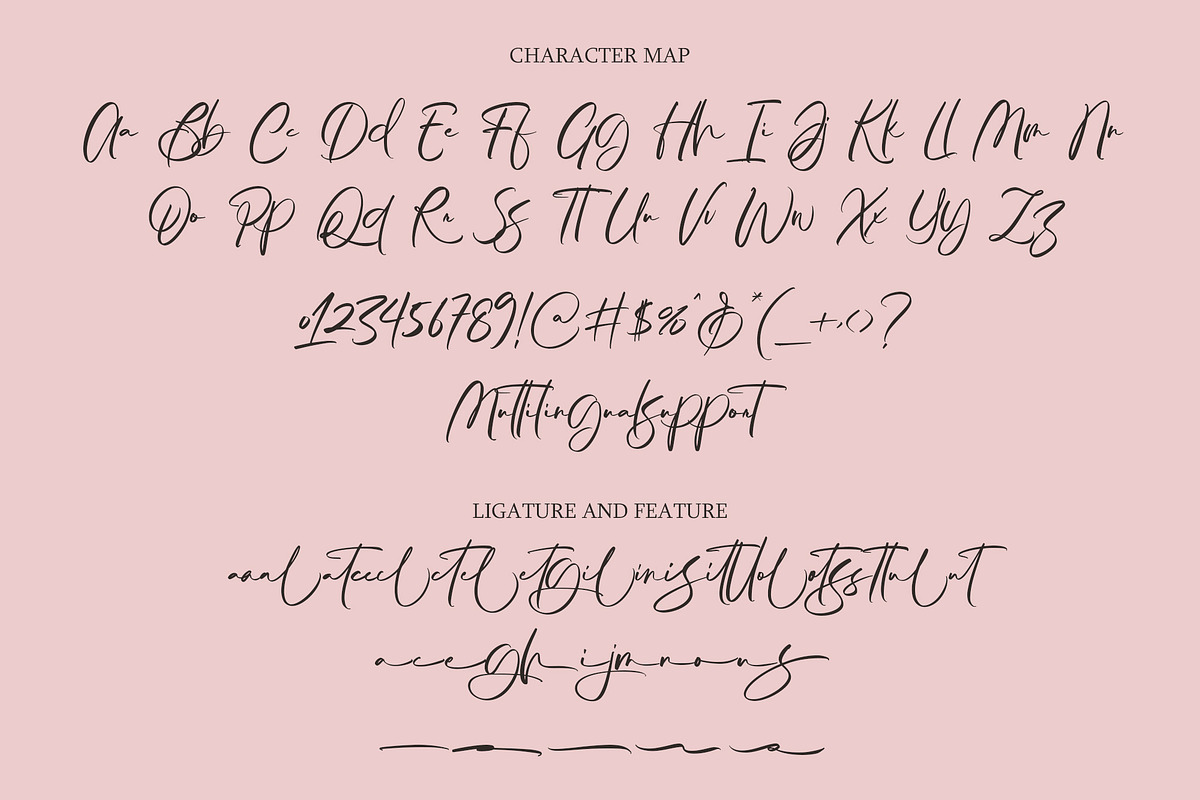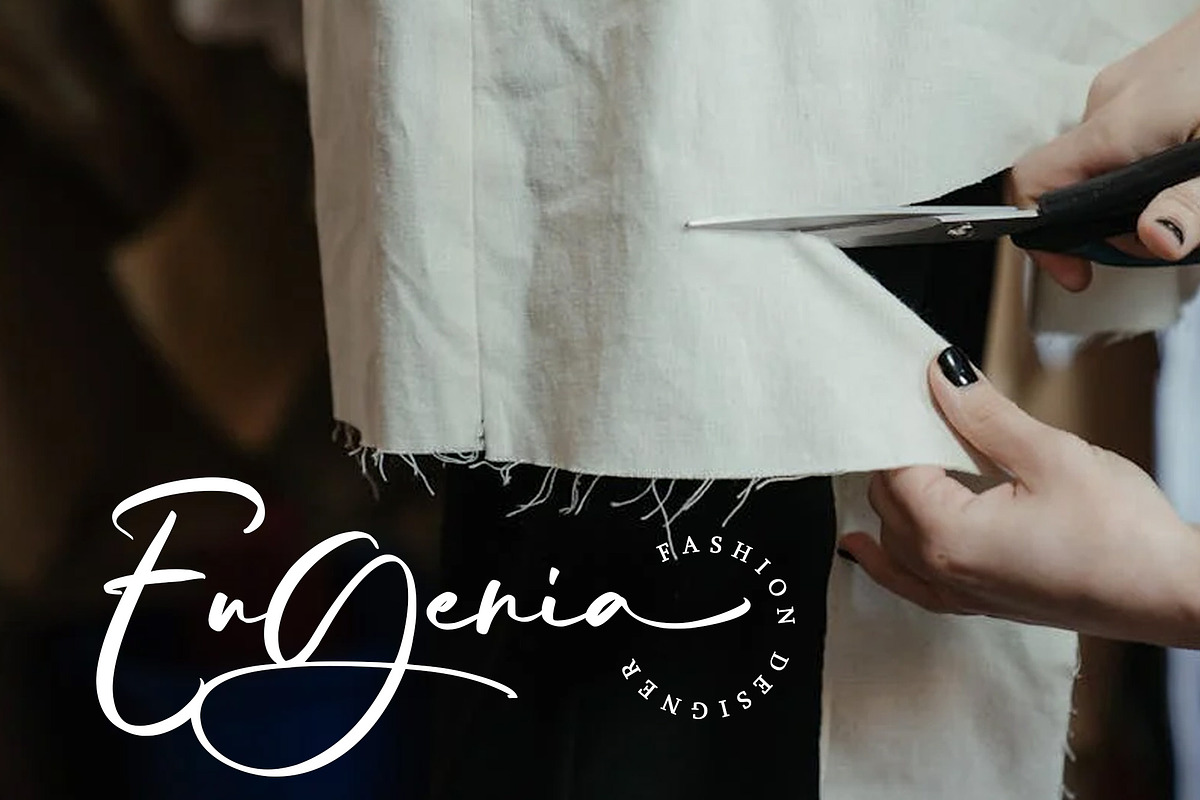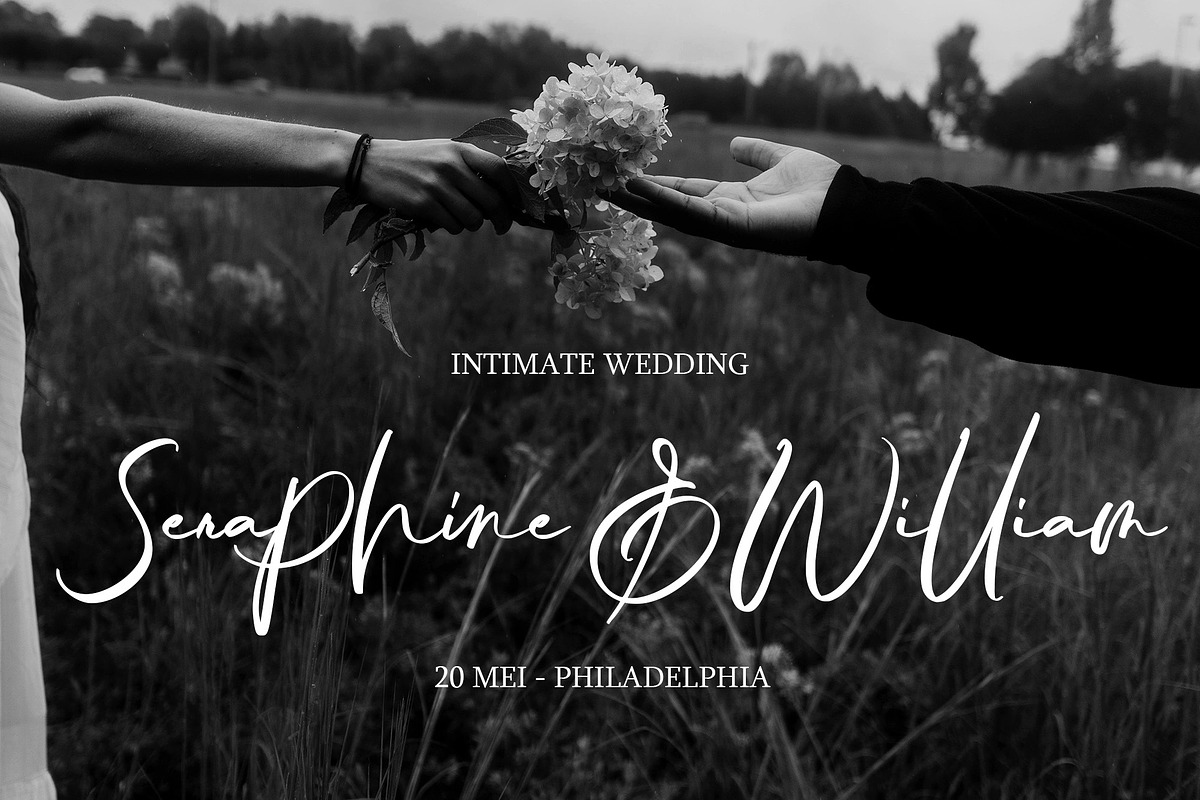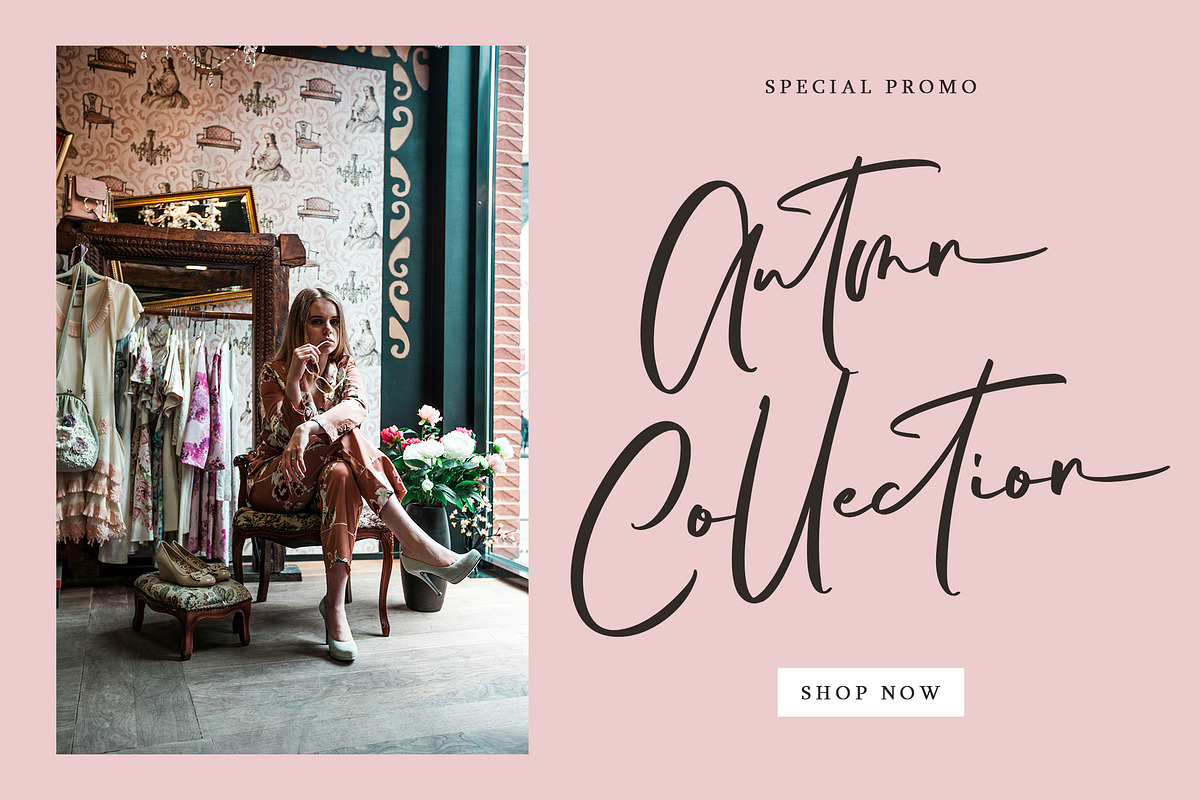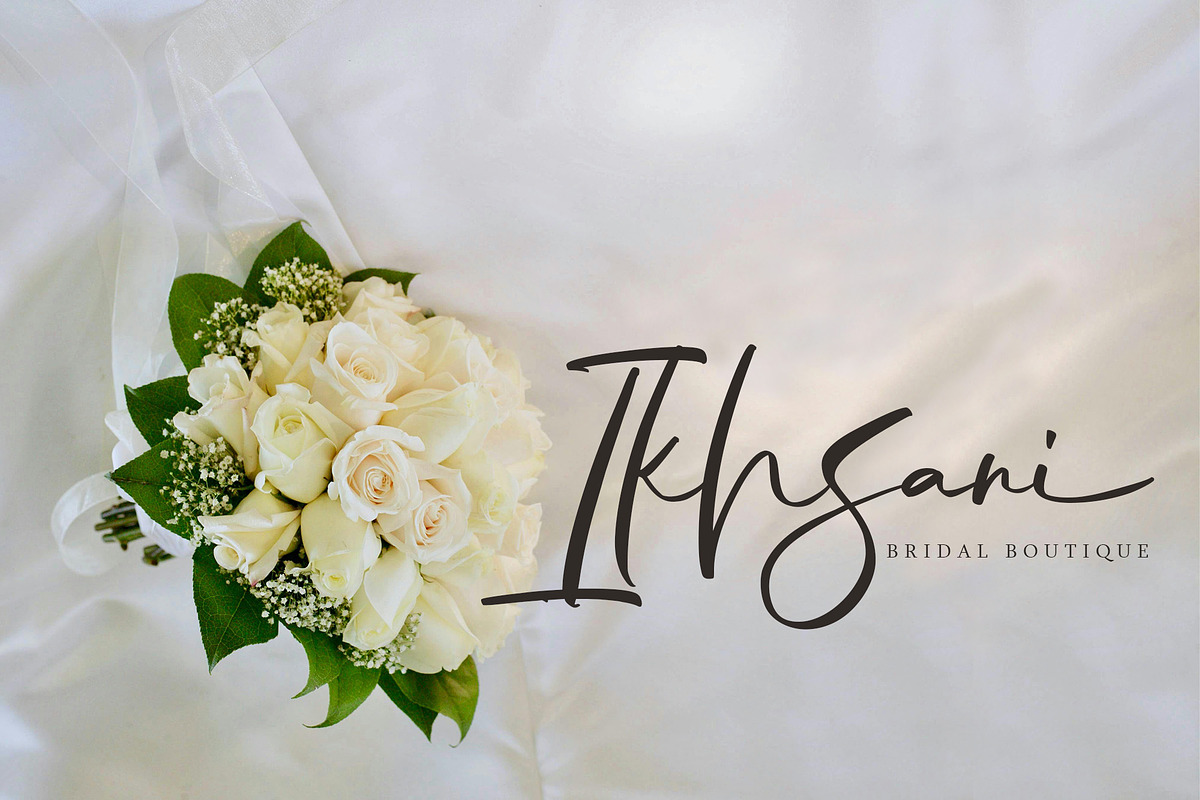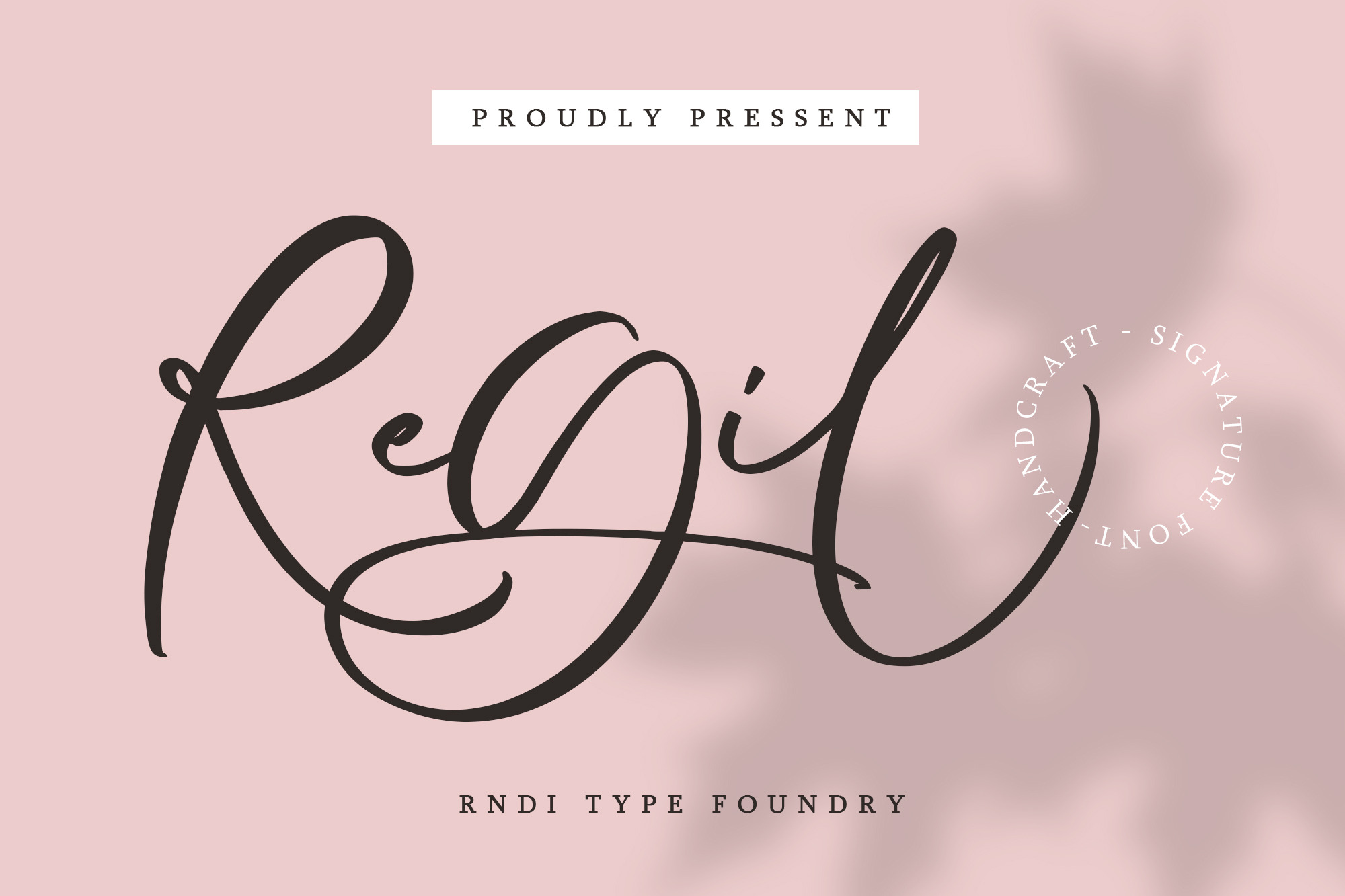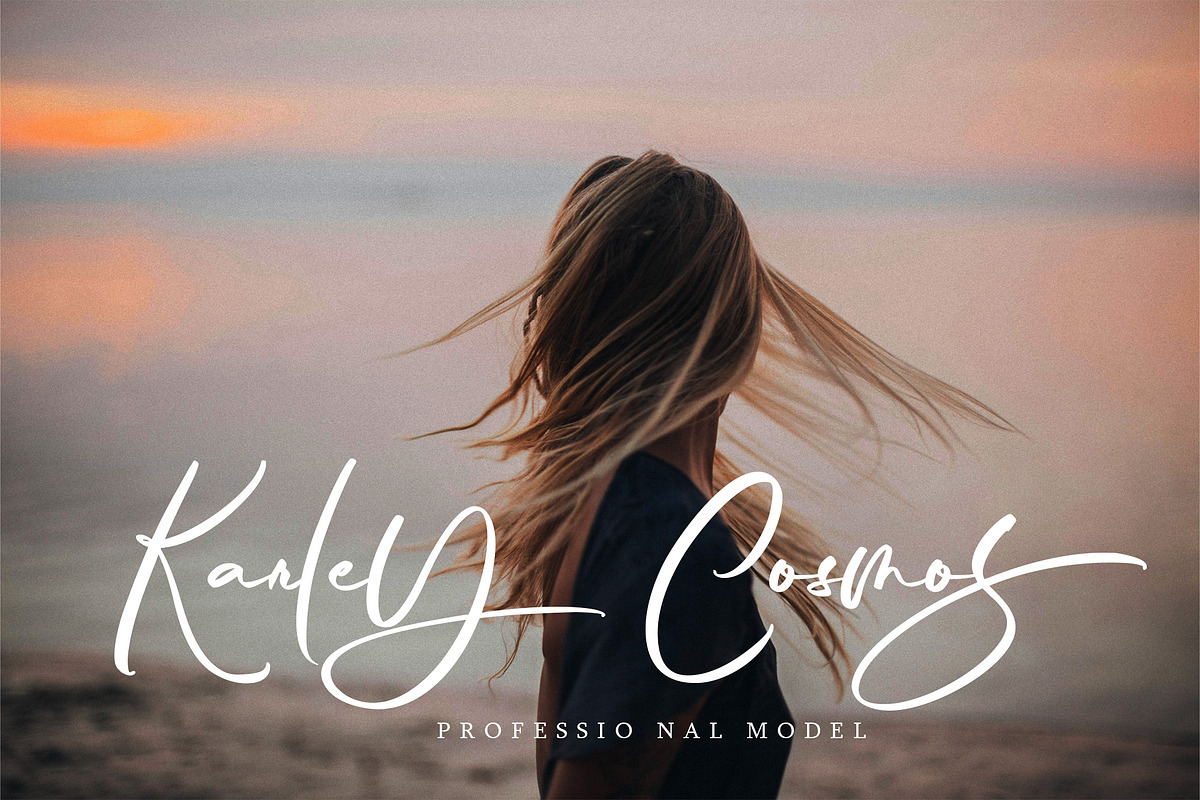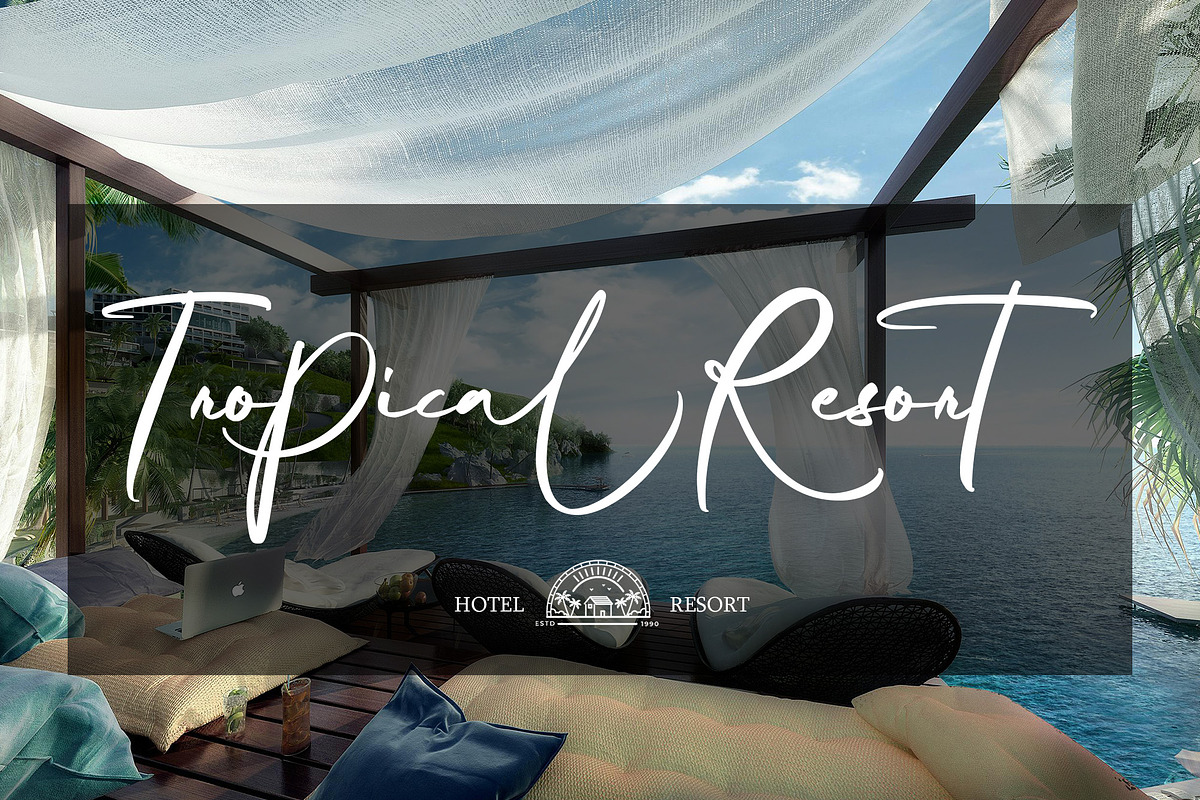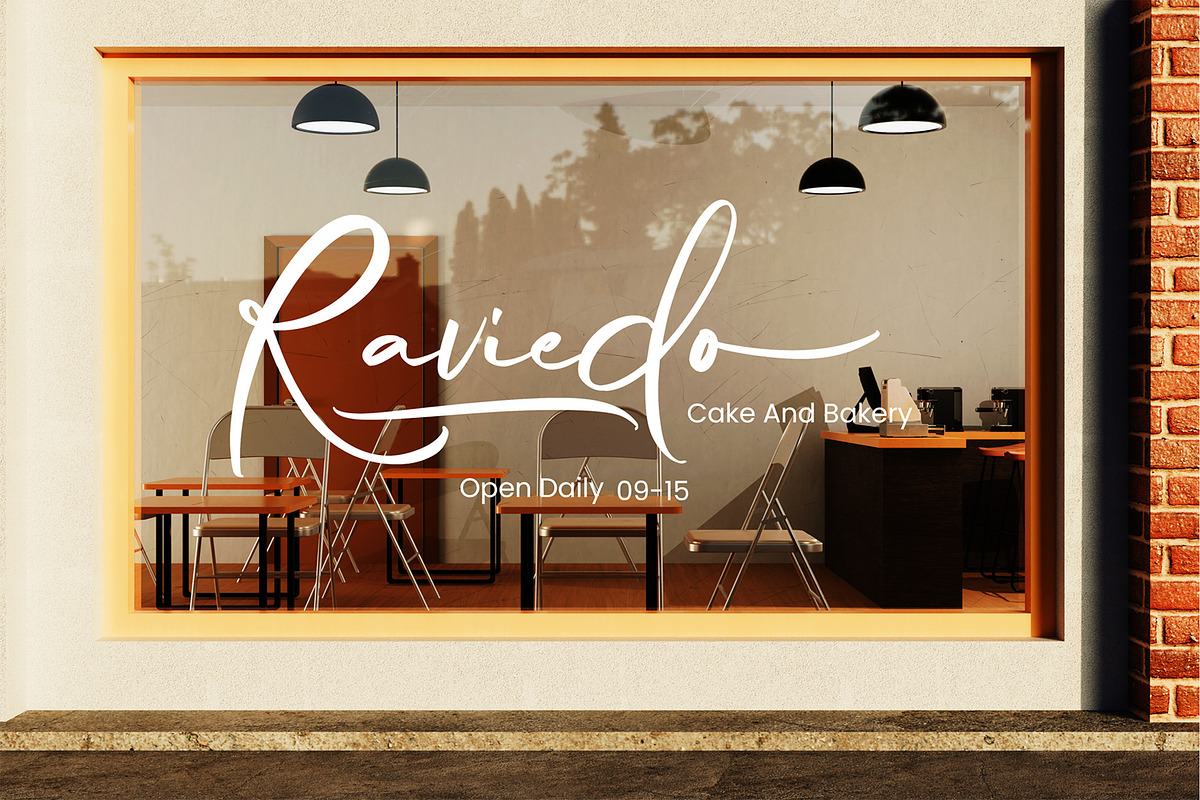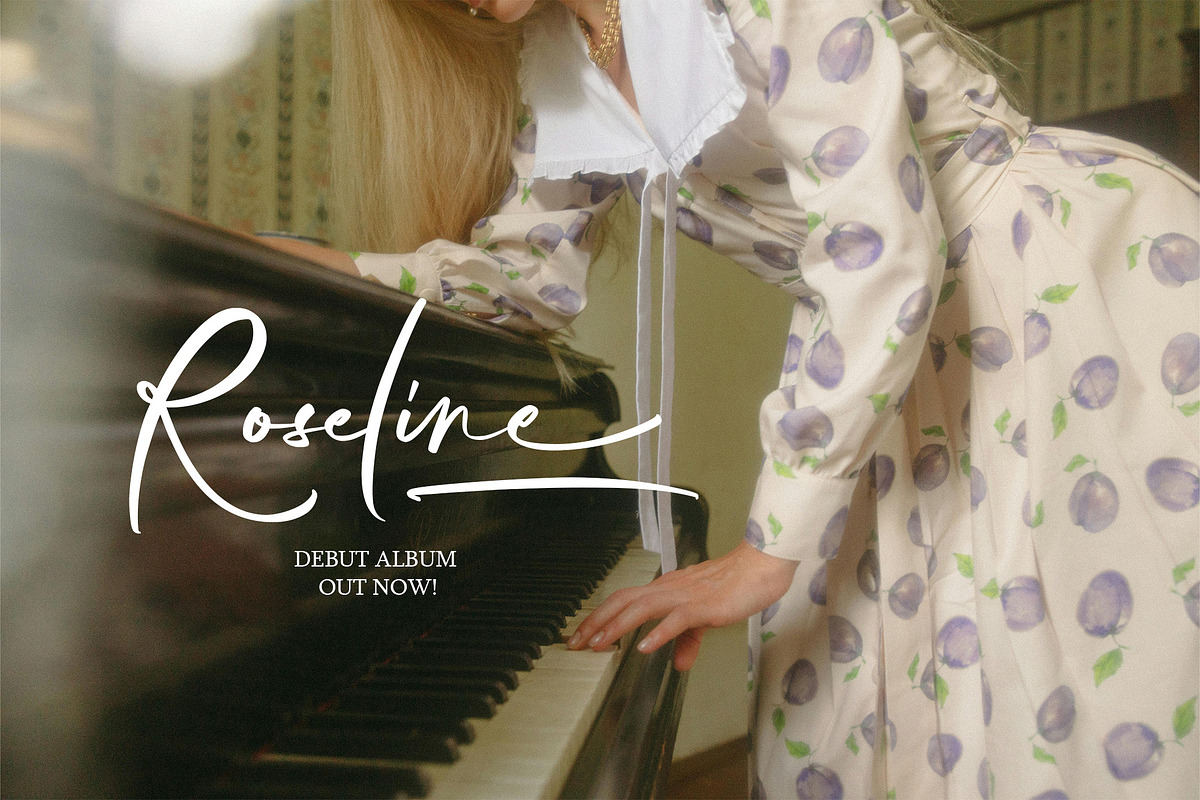
Regil – Handcrafted Signature Font
Regil is a dynamic brush font with strong, expressive strokes and an authentic handcrafted feel. Its rough yet refined texture adds character to any design, making it ideal for branding, logos, packaging, posters, and more.
energetic brush style Natural hand-drawn texture Suitable for modern and vintage designs Supports multiple languages Regil is designed to bring impact and personality to your creative projects.